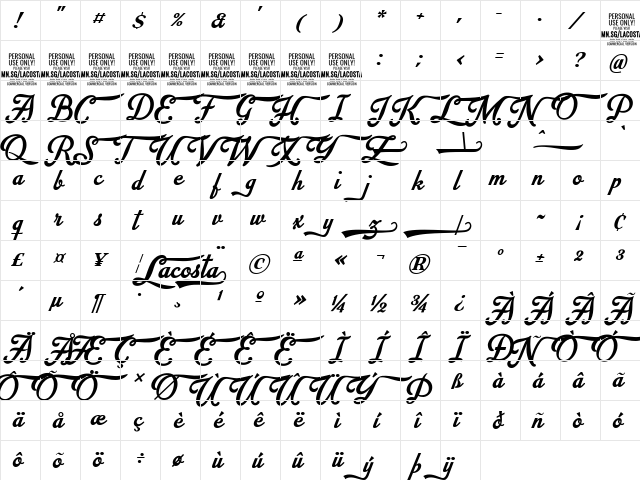
Lacosta PERSONAL USE ONLY Regular
| Foundry | Mans Greback |
| Designer | Mans Greback |
Design Context for Lacosta PERSONAL USE ONLY Typeface
Lacosta PERSONAL USE ONLY is a composed and adaptable typeface that performs quietly and consistently across a wide range of design contexts.